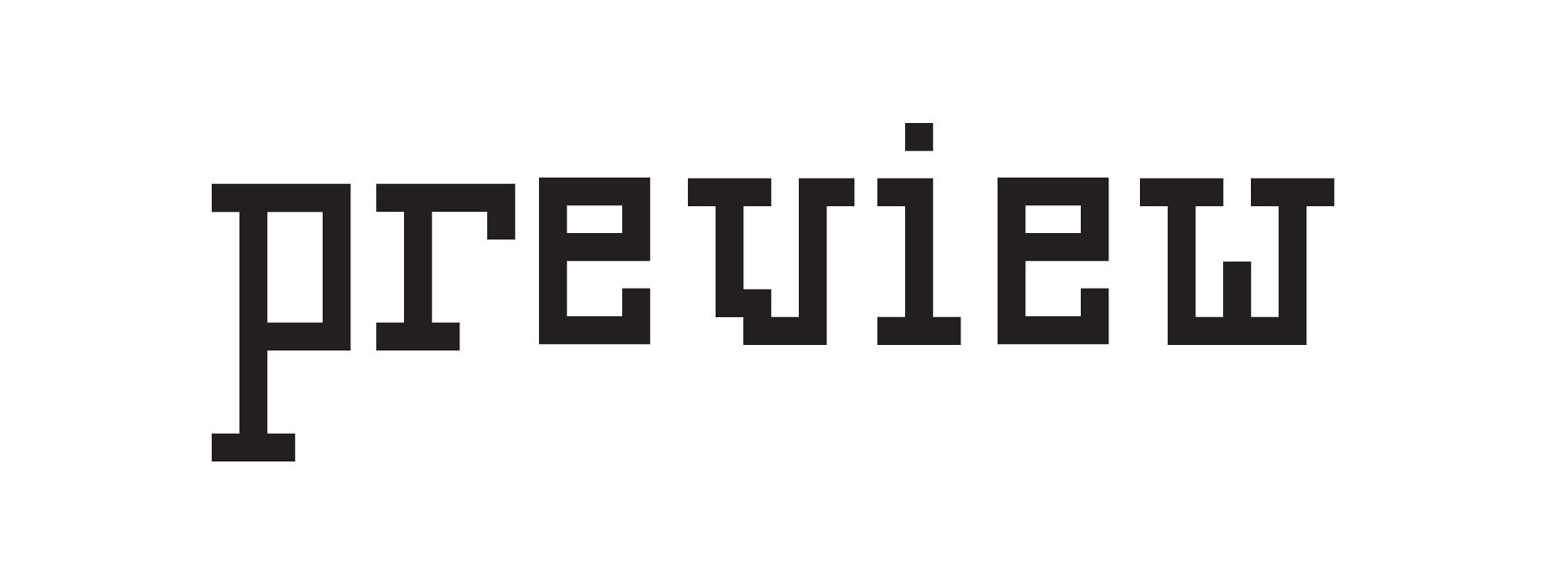
You have to download to see the full font face.Did this in Intro to Typeography.
We had to create a bitmap font.
The panagram is the flavor text on a Magic The Gathering card.